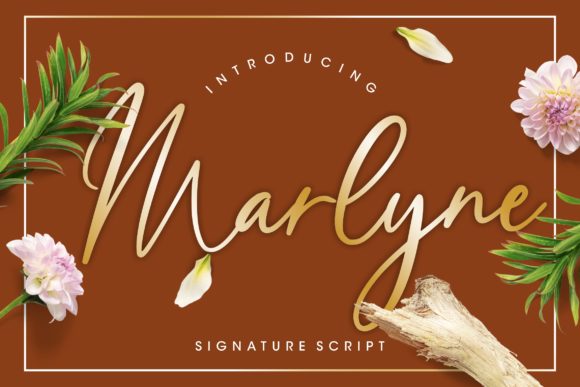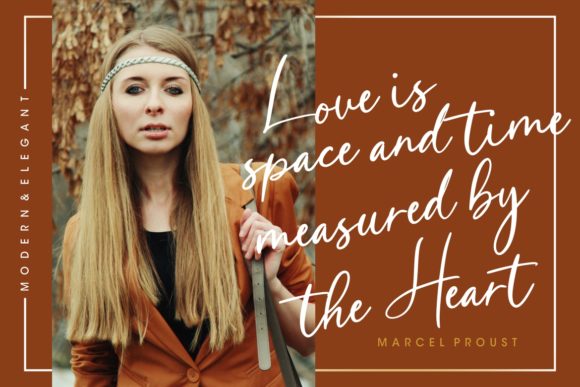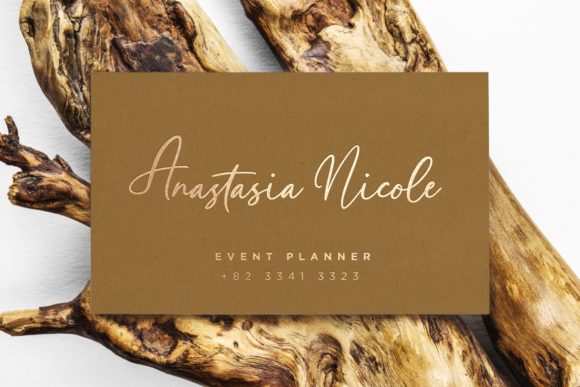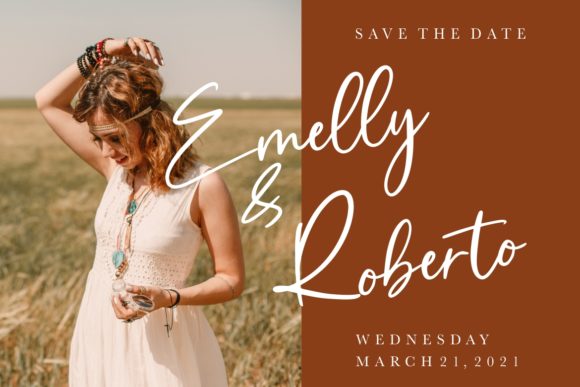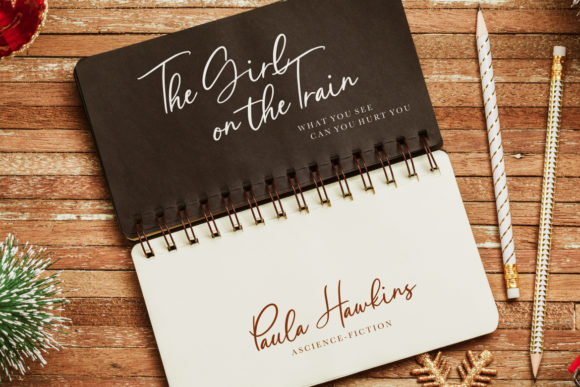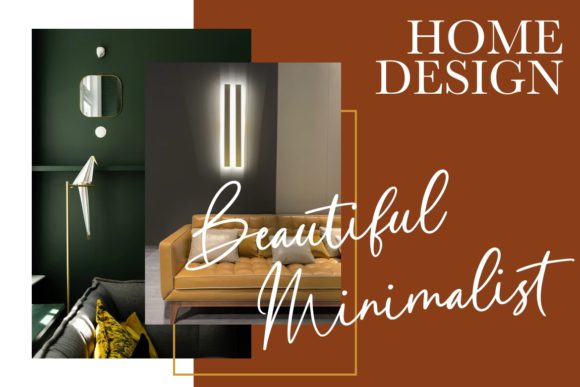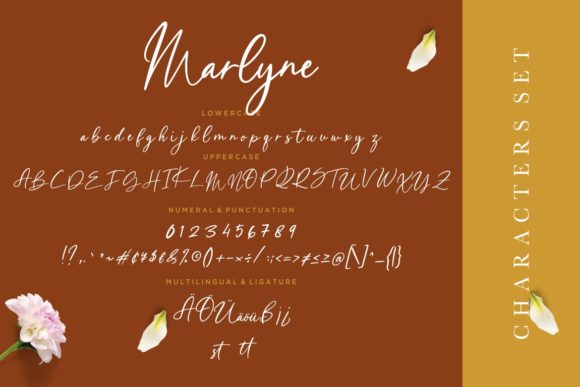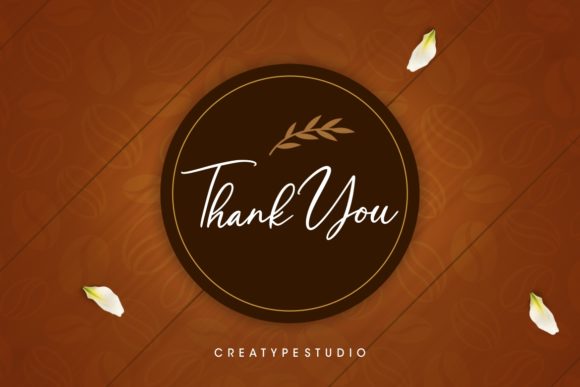
Marlyne Font
About Marlyne Font
Marlyne is a lovely and flowing handwritten font. It maintains its classy calligraphic influences while feeling contemporary and fresh. Fall in love with this font and bring your projects to the highest levels!